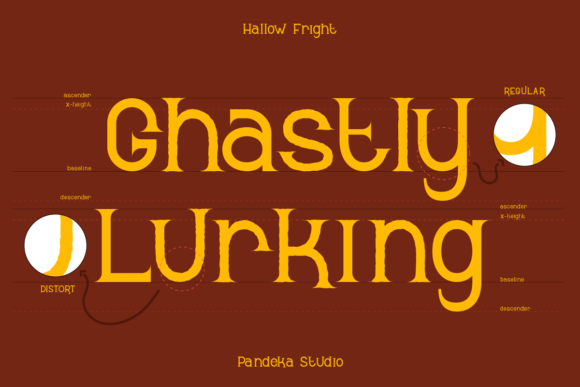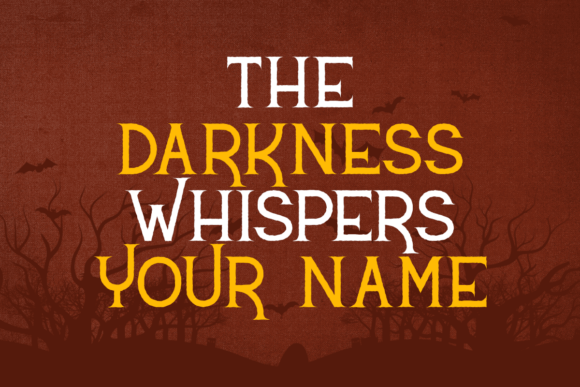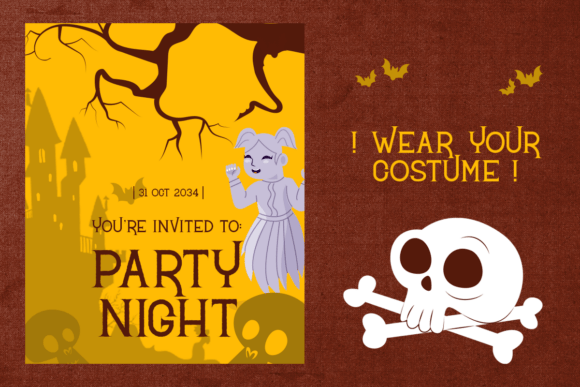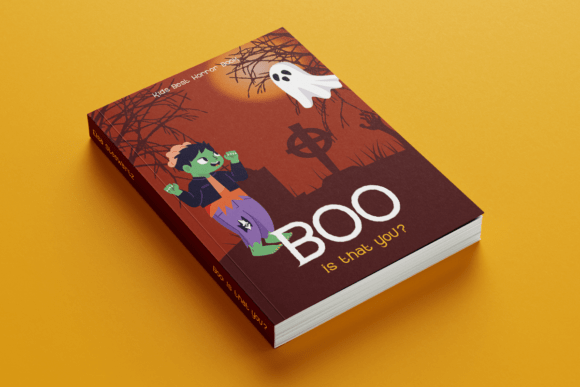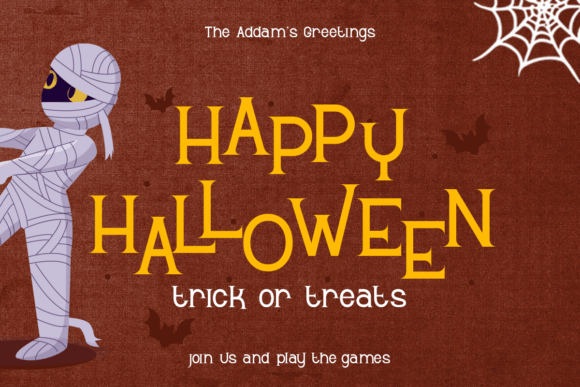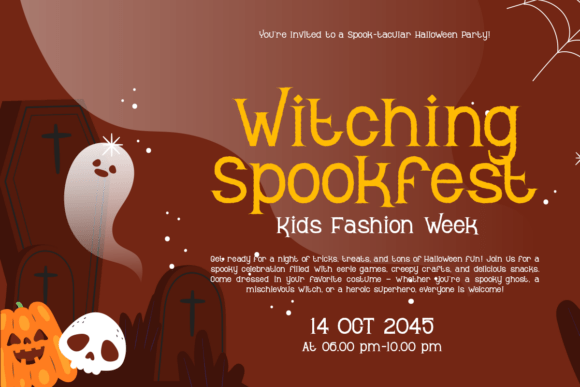
Unleash the Spooky Charm with Hallow Fright Font: The Ultimate Display Font for Halloween Designs
As the spookiest time of the year approaches, designers and crafters are on the lookout for the perfect font to add a touch of frightful charm to their Halloween-themed designs. Look no further than the Hallow Fright Font, a spooky and playful display font that’s sure to set the mood for any Halloween project. With its quirky shapes and eerie vibe, this typeface is perfect for creating ghostly headlines, haunted titles, and spooky messages that will leave a lasting impression.
A Font that Embodies the Spirit of Halloween
Hallow Fright Font is designed to capture the essence of Halloween, with bold and quirky shapes that instantly evoke a sense of spookiness and playfulness. Its eerie vibe makes it perfect for creating party invitations, posters, greeting cards, and festive packaging that will leave your audience screaming for more. Whether you’re designing for a Halloween party, a haunted house, or simply want to add a touch of spooky charm to your project, Hallow Fright Font is the perfect choice.
Two Unique Styles to Create a Killer Combination
One of the standout features of Hallow Fright Font is its versatility. The font comes with two unique styles: Regular and Distort. The Regular style offers a bold and playful take on the spooky theme, while the Distort style adds an extra layer of eeriness with its irregular shapes and lines. This allows you to mix and match the two styles to create a killer combination that will add an extra layer of frightful charm to your designs.
A Feature-Rich Font for Endless Creative Possibilities
Hallow Fright Font is more than just a pretty face. It’s a feature-rich font that’s designed to give you endless creative possibilities. The font comes complete with:
- Uppercase and lowercase letters for maximum flexibility
- Numbers and punctuation to add an extra layer of detail to your designs
- Multilingual support to reach a global audience
With Hallow Fright Font, you can create a wide range of designs, from simple and bold headlines to more complex and intricate compositions. The font’s versatility and feature-rich design make it perfect for designers and crafters who want to push the boundaries of their creativity.
Hallow Fright Font is perfect for designers and crafters who want to add a touch of spooky charm to their Halloween designs. Whether you’re creating:
- Party invitations and posters
- Haunted house and attraction signage
- Festive packaging and labeling
Hallow Fright Font is the perfect choice. Its bold personality and quirky shapes make it a fun and creative way to add a touch of frightful charm to any project.
- Spooky and playful display font
- Perfect for Halloween-themed designs
- 2 unique styles: Regular and Distort
- Uppercase and lowercase letters, numbers, punctuation, and multilingual support
- Feature-rich design for endless creative possibilities